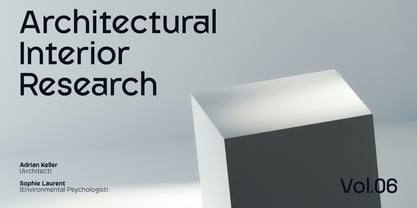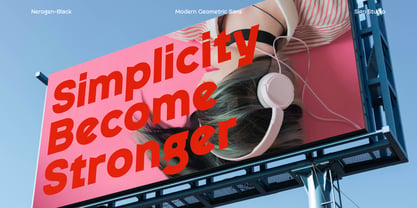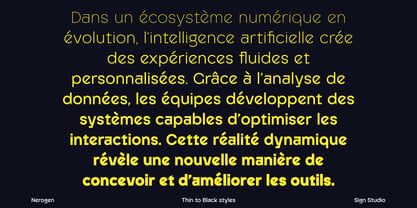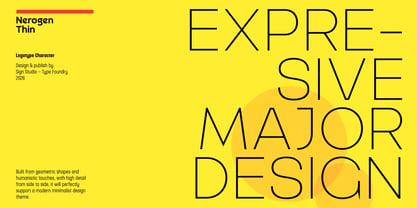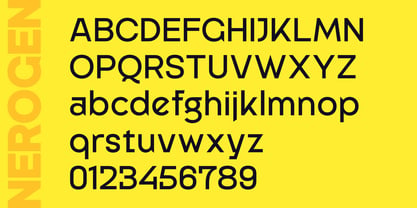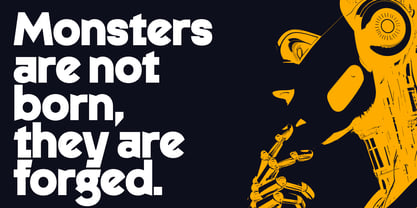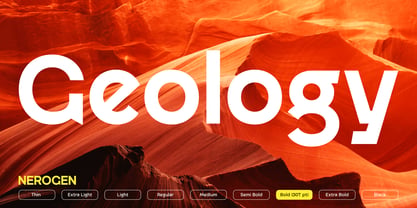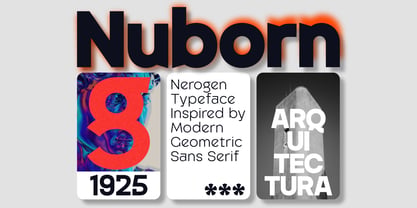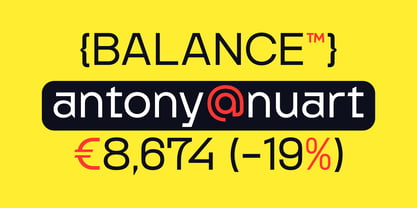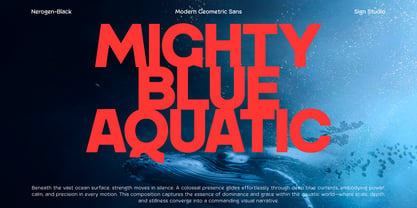
Nerogen
by Sign Studio
The Nerogen Font Family was designed by Sugi Yanto and published by Sign Studio. Nerogen contains 9 styles and family package options. More about this family
Neogen is a contemporary sans-serif typeface engineered for clarity, versatility, and modern visual impact. Designed with a refined geometric structure and balanced proportions, it delivers a clean yet distinctive voice across a wide range of applications.
With a complete system of nine weights from Thin to Black, Neogen offers seamless flexibility for editorial layouts, branding systems, user interfaces, and digital environments. Each weight is carefully crafted to maintain consistency while expressing its own character—ranging from elegant minimalism in lighter styles to strong, commanding presence in heavier cuts.
Its sharp detailing, optimized spacing, and multilingual support make Neogen a reliable choice for designers seeking both aesthetic precision and functional performance. Whether used in large-scale headlines or compact text settings, Neogen adapts effortlessly while maintaining a cohesive and contemporary tone.